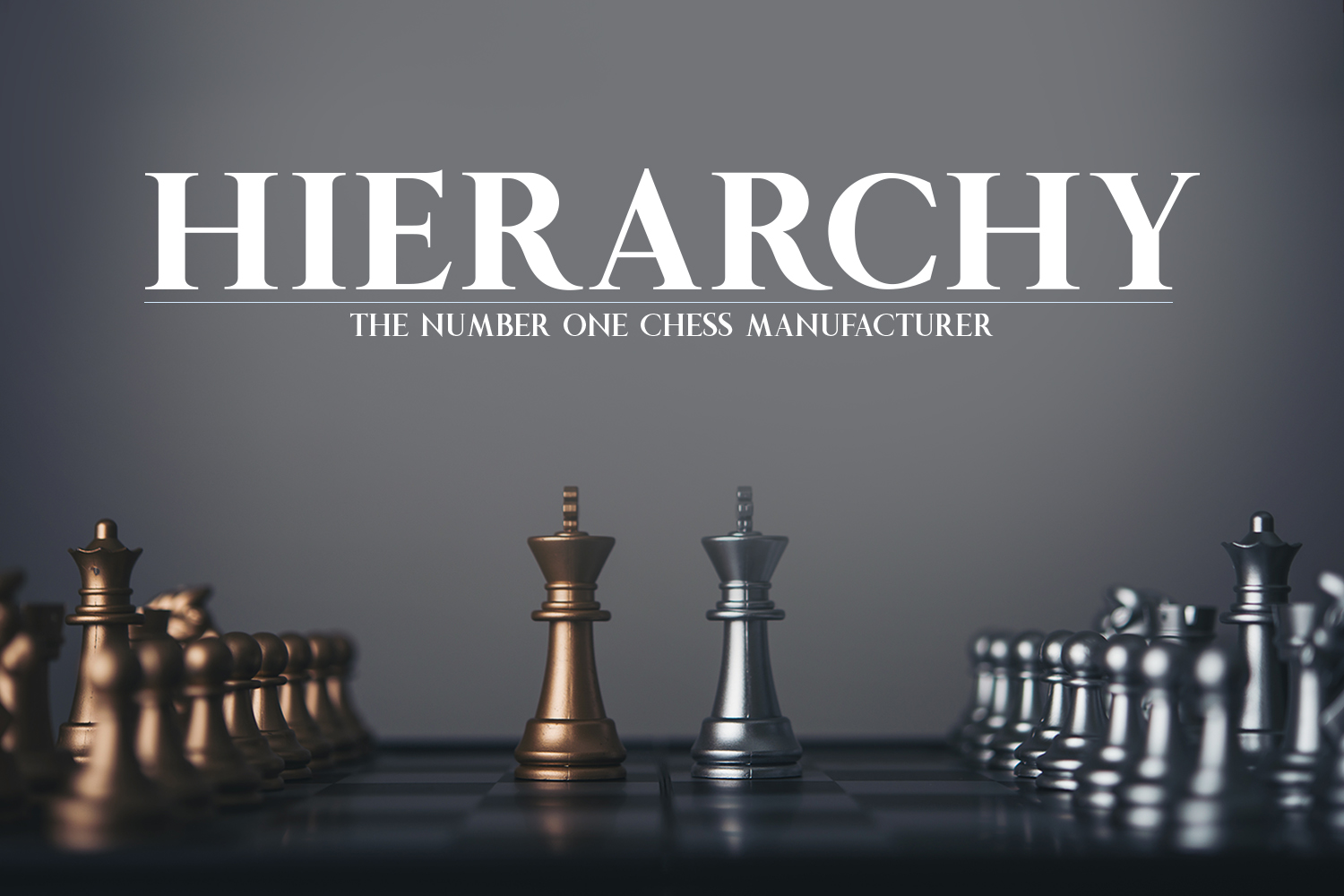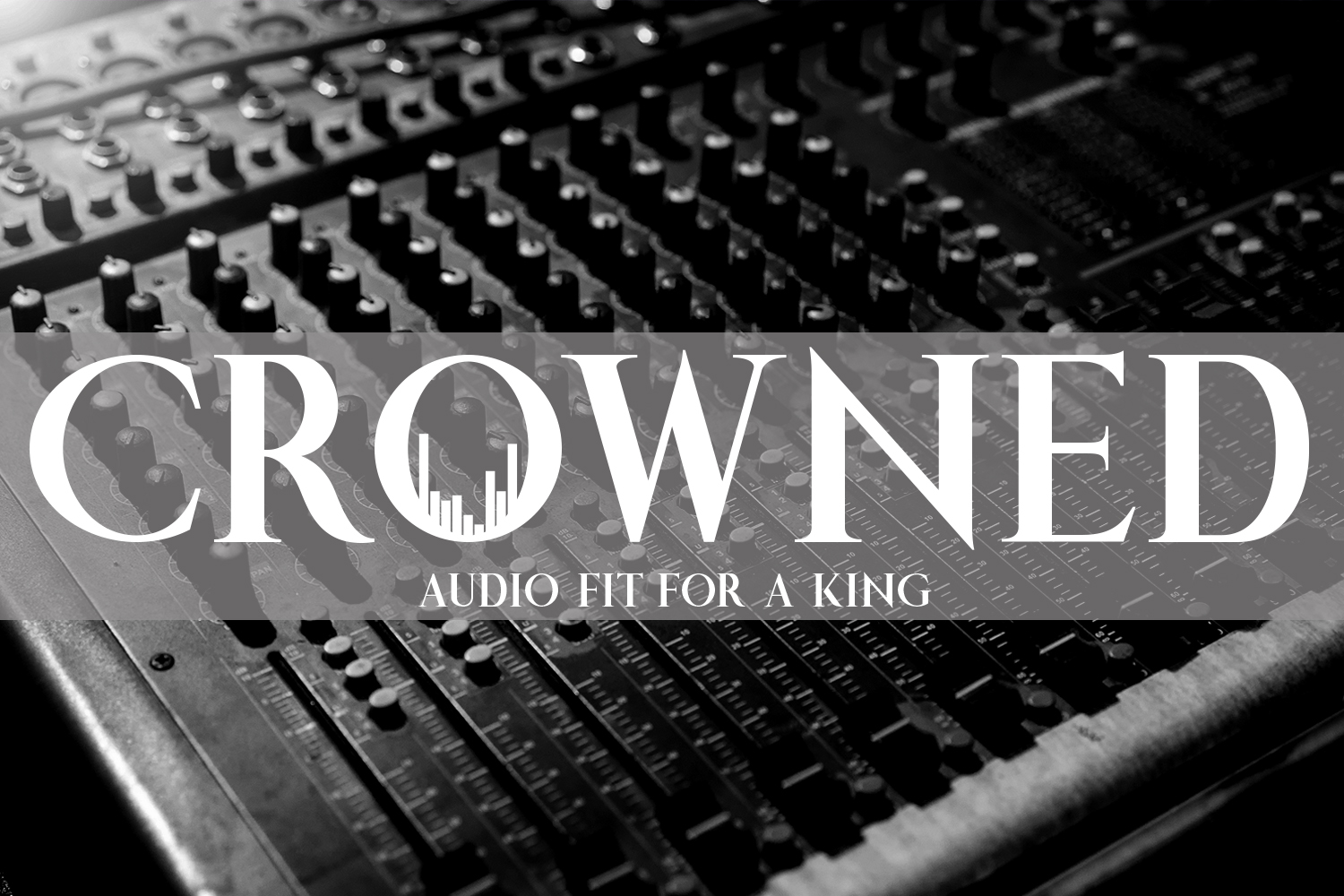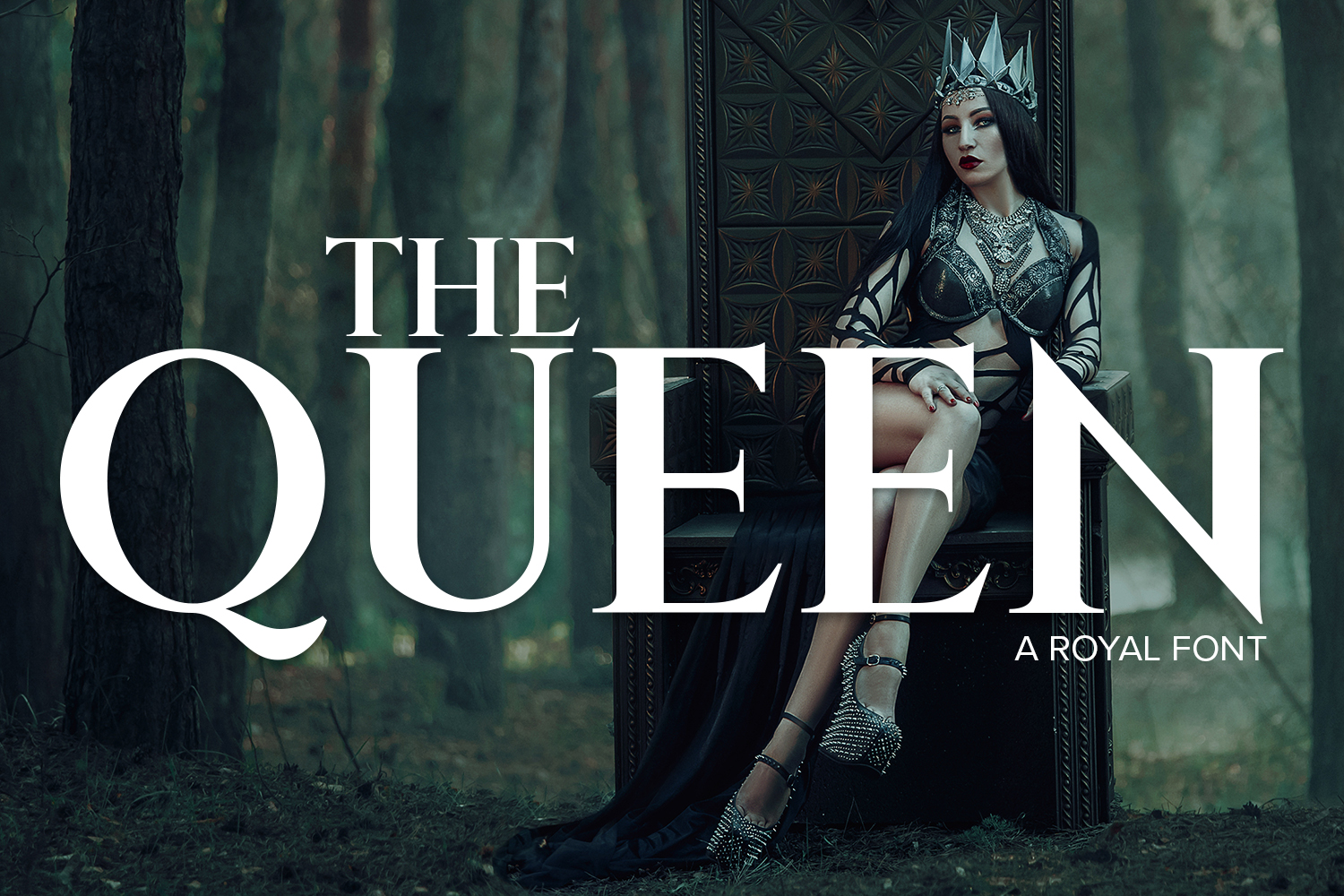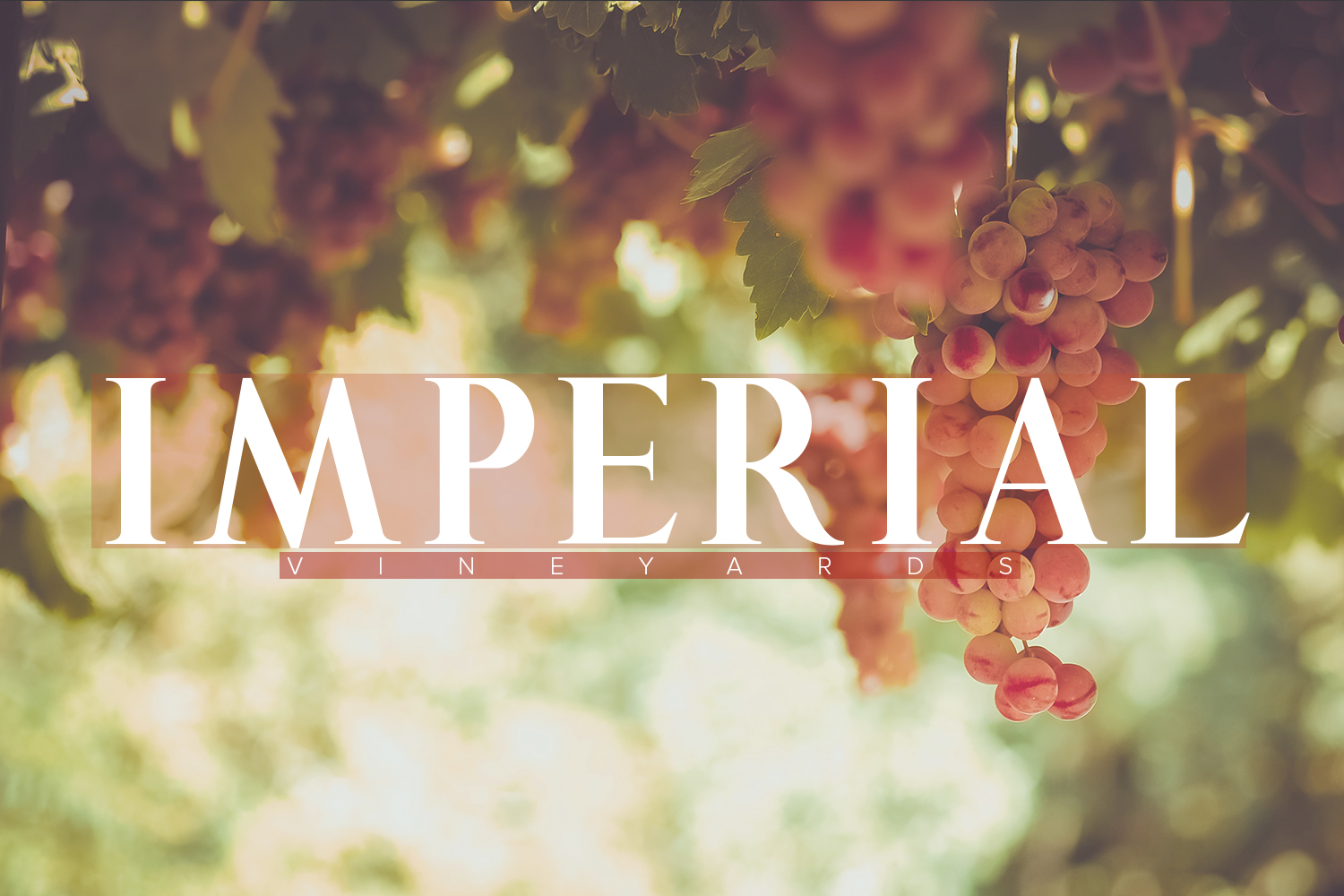
The Queen Font
The Queen is a beautiful and authoritative royal font perfect for logo’s, branding, advertisements, magazines and more. Give your designs a royal feel today!